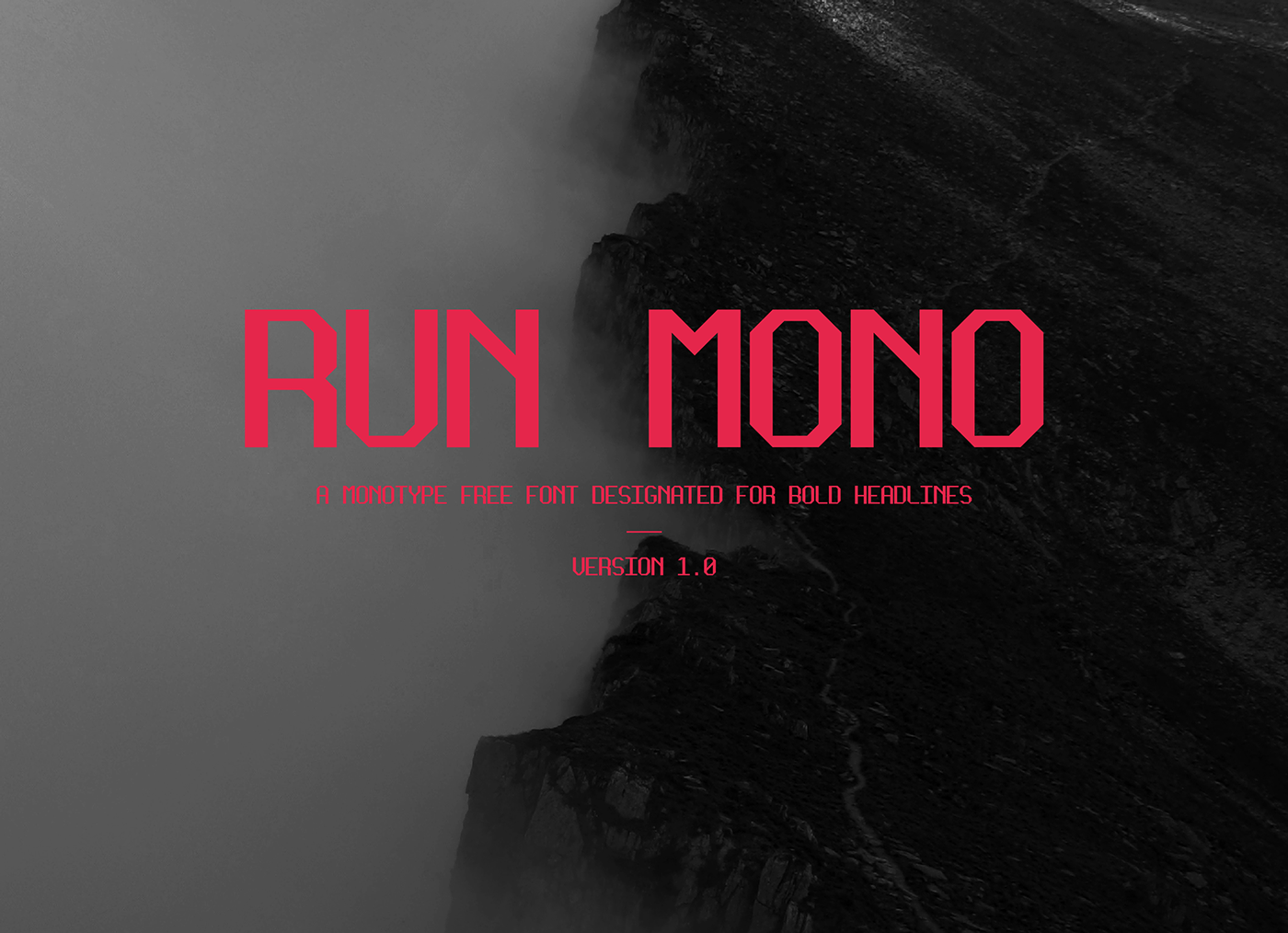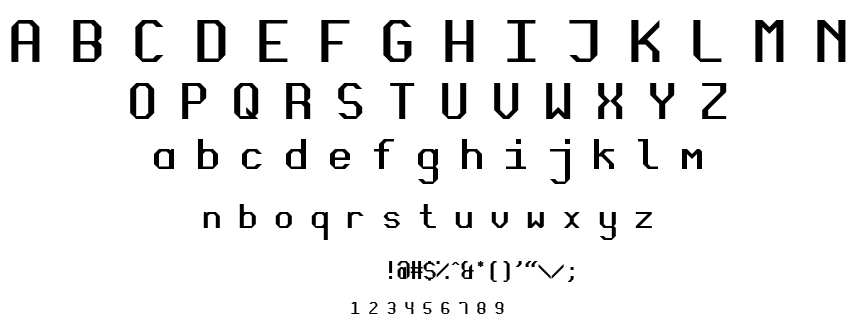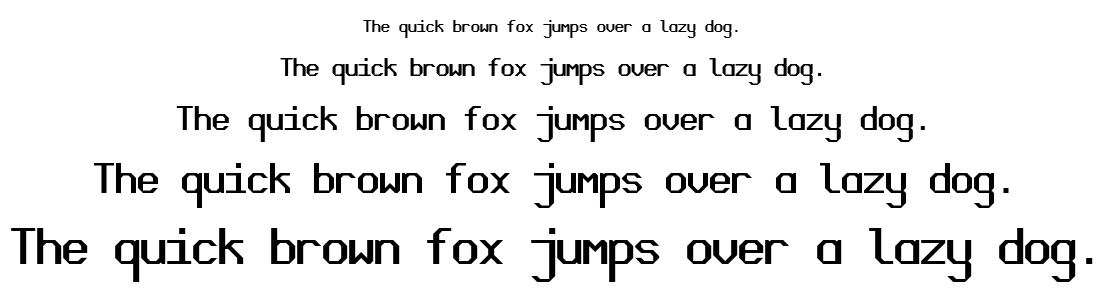
Rub Mono is a free font, designated for bold and decorative headlines. The characters are composed out of rect- and triangles and share the same width.